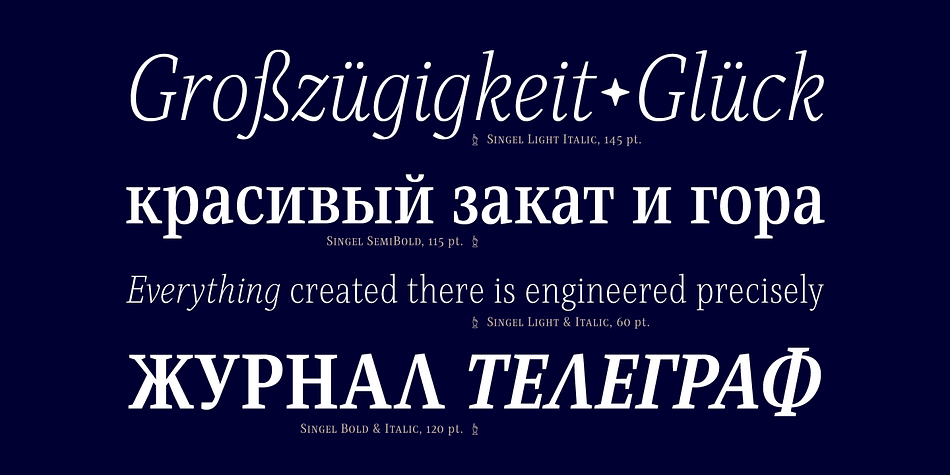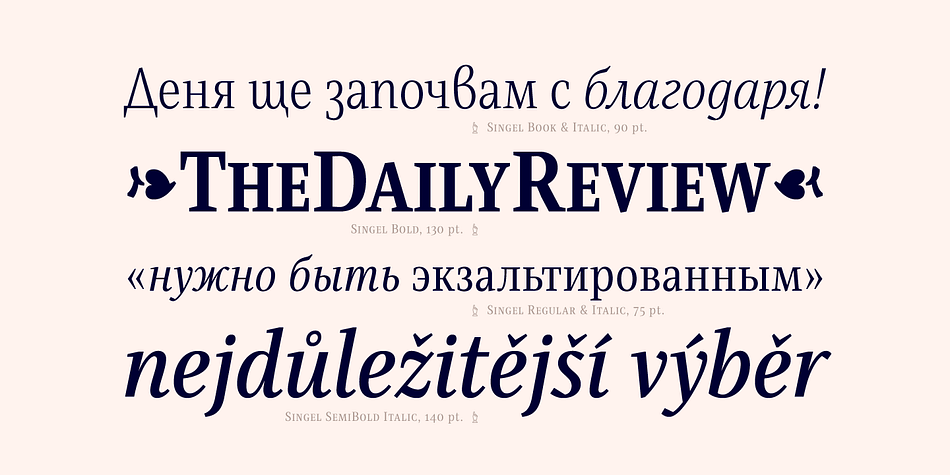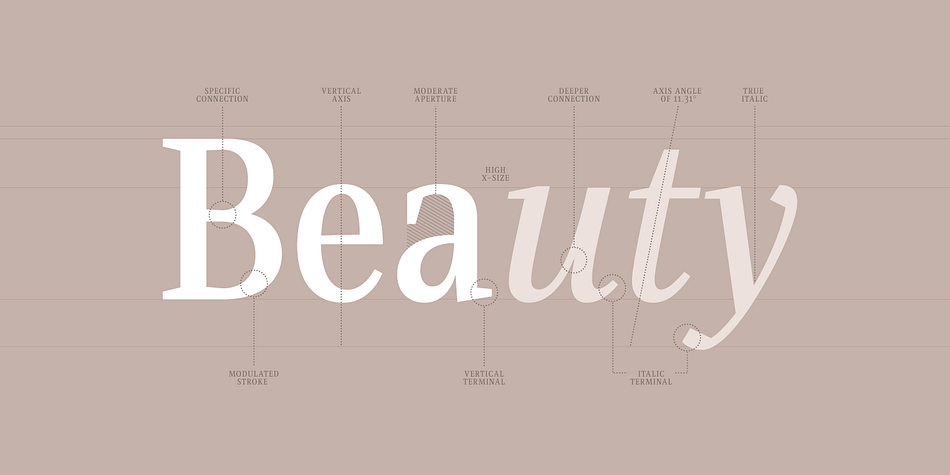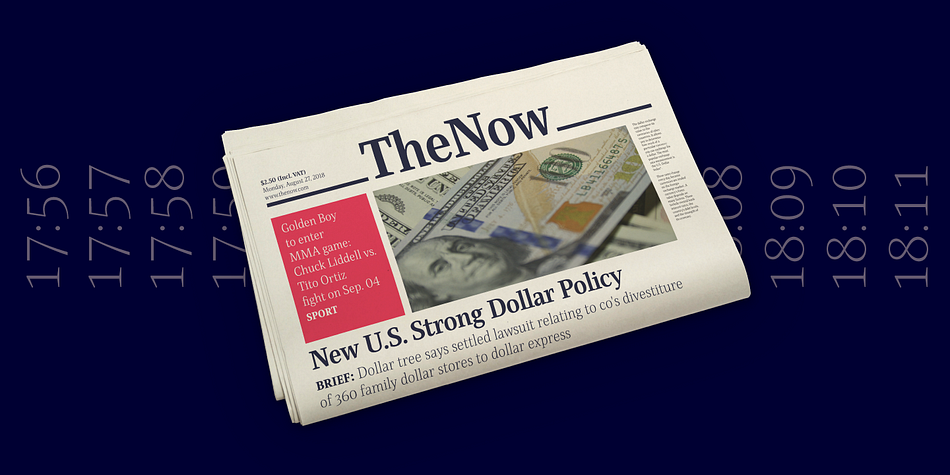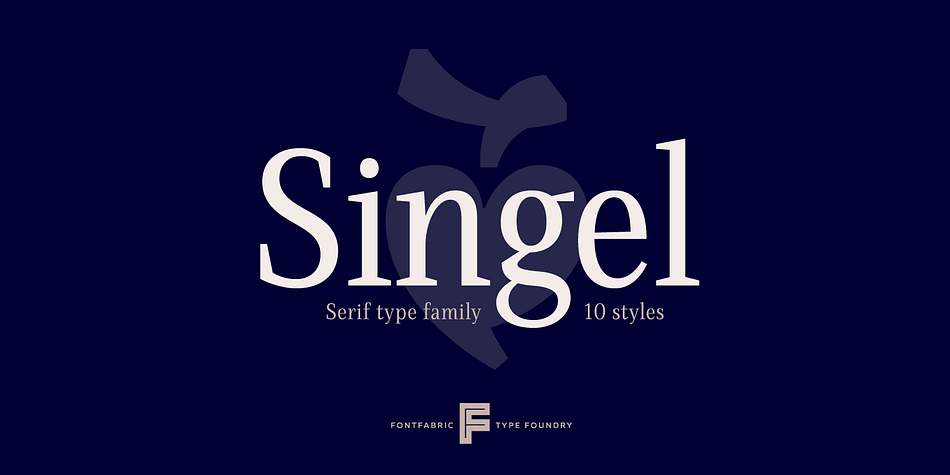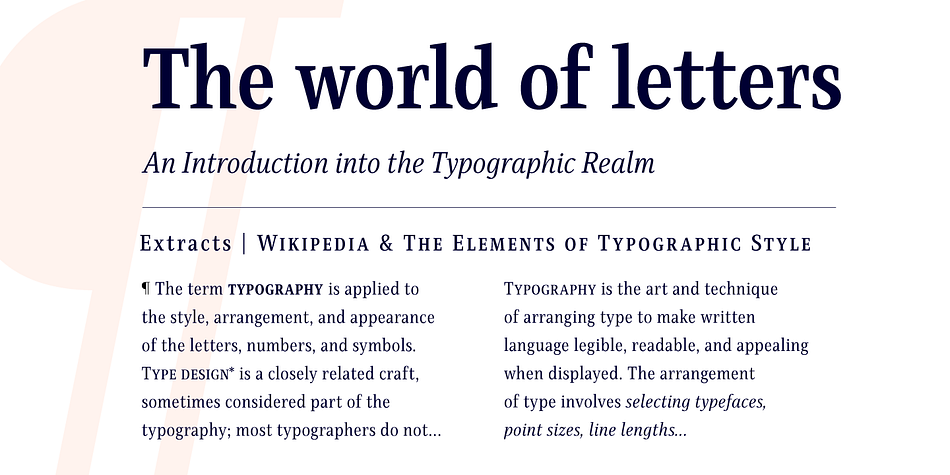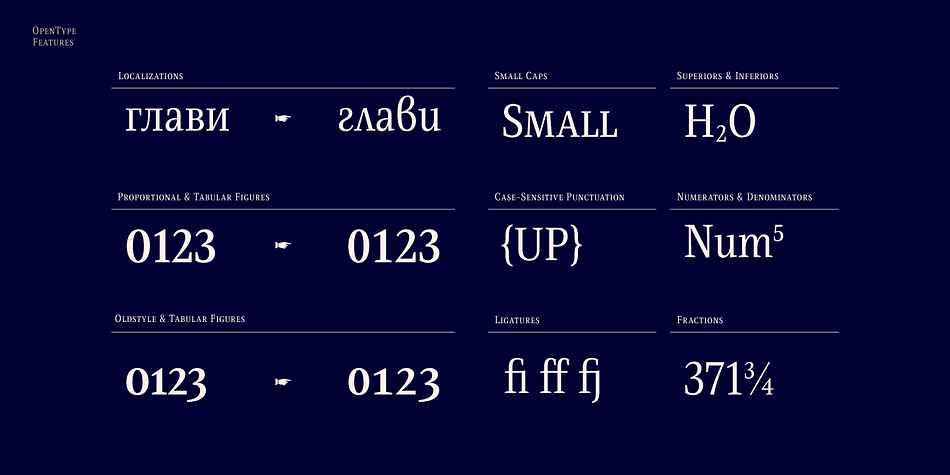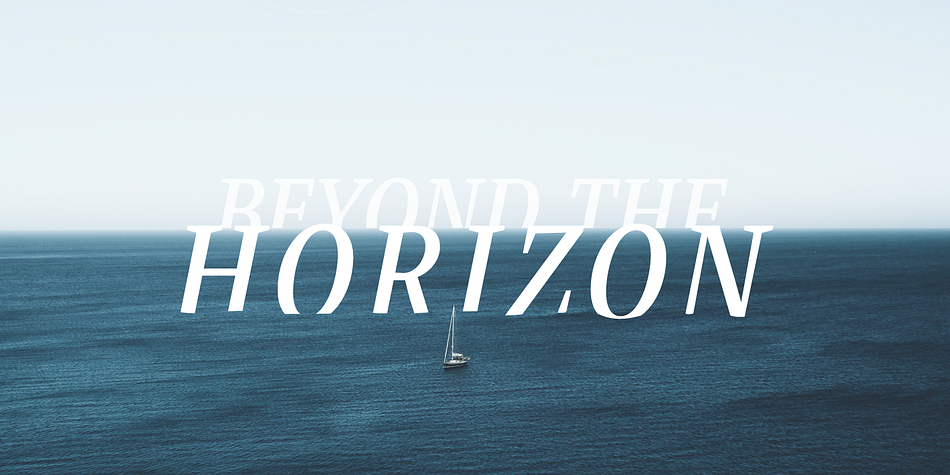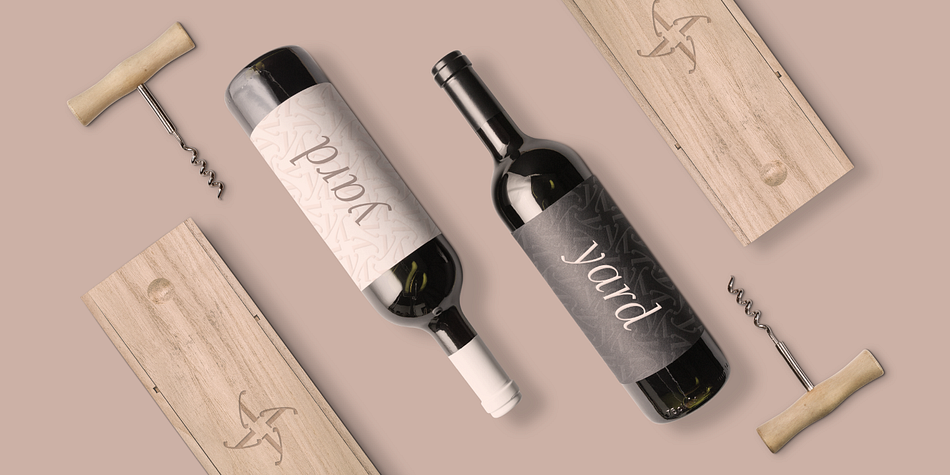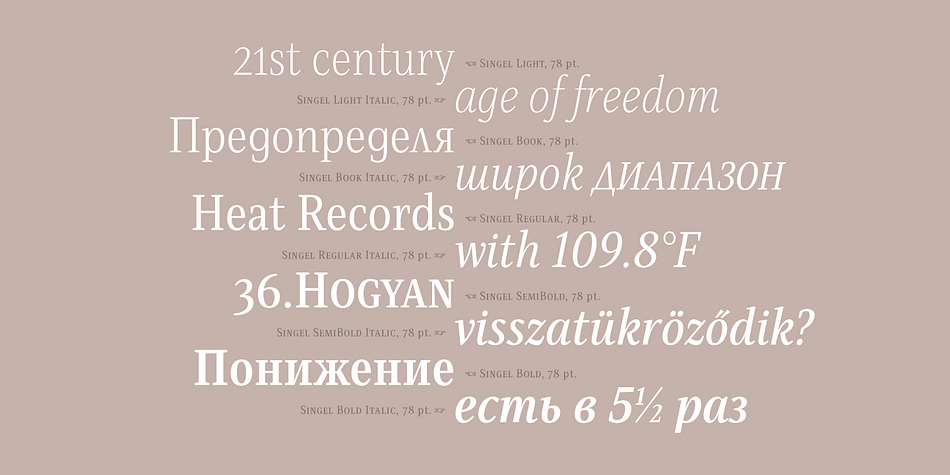
Designed by Jacklina Jekova and Nikolay Petroussenko, Singel is a serif font family. This typeface has eleven styles and was published by Fontfabric.
Singel is a neoclassical serif with semi-condensed proportions. As a contemporary interpretation, this typeface combines the rationalist modulated stroke with an elegant silhouette and crisp serifs. The altogether splendid appearance of Singel, completed with a full set of Small Capitals and true form of italics makes it perfect for any luxurious and graceful design. Other aspects of its characteristics include the consistency of 10 styles from Light to Bold; a coverage of Extended Latin and Cyrillic with span for more than 130 languages; a flawless functionality and support of many OpenType features, such as localizations, tabular numerals, inferiors and superiors, numerators & denominators, fractions, case sensitivity etc.
• Over 900 glyphs in 10 styles (Light to Bold);
• Extended Latin and Cyrillic for more than 130 languages;
• Tall x-height and Semi-Condensed proportions;
• High contrast and modulated stroke with vertical stress;
• Neoclassical characteristics and moderate apertures;
• Full set of Small Capitals;
• True form of italics;
• Coverage of multiple OpenType features;
• Suitable for wide design purposes.